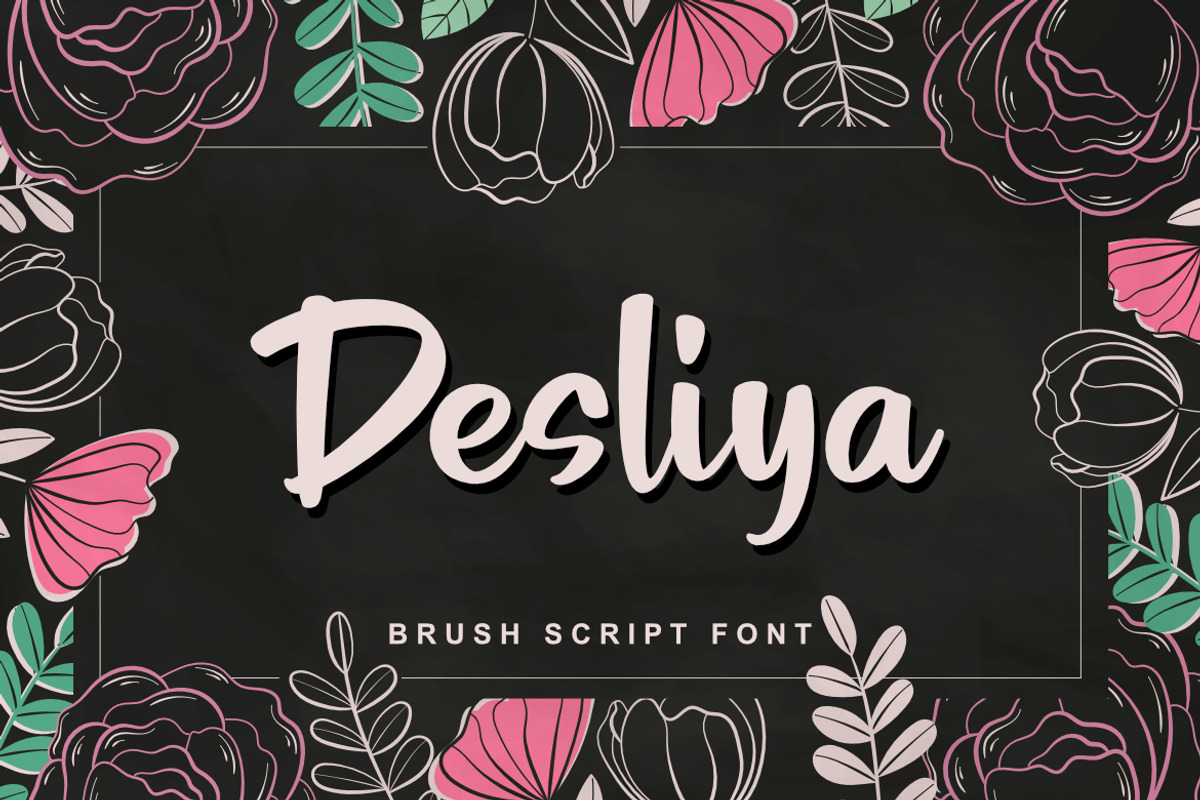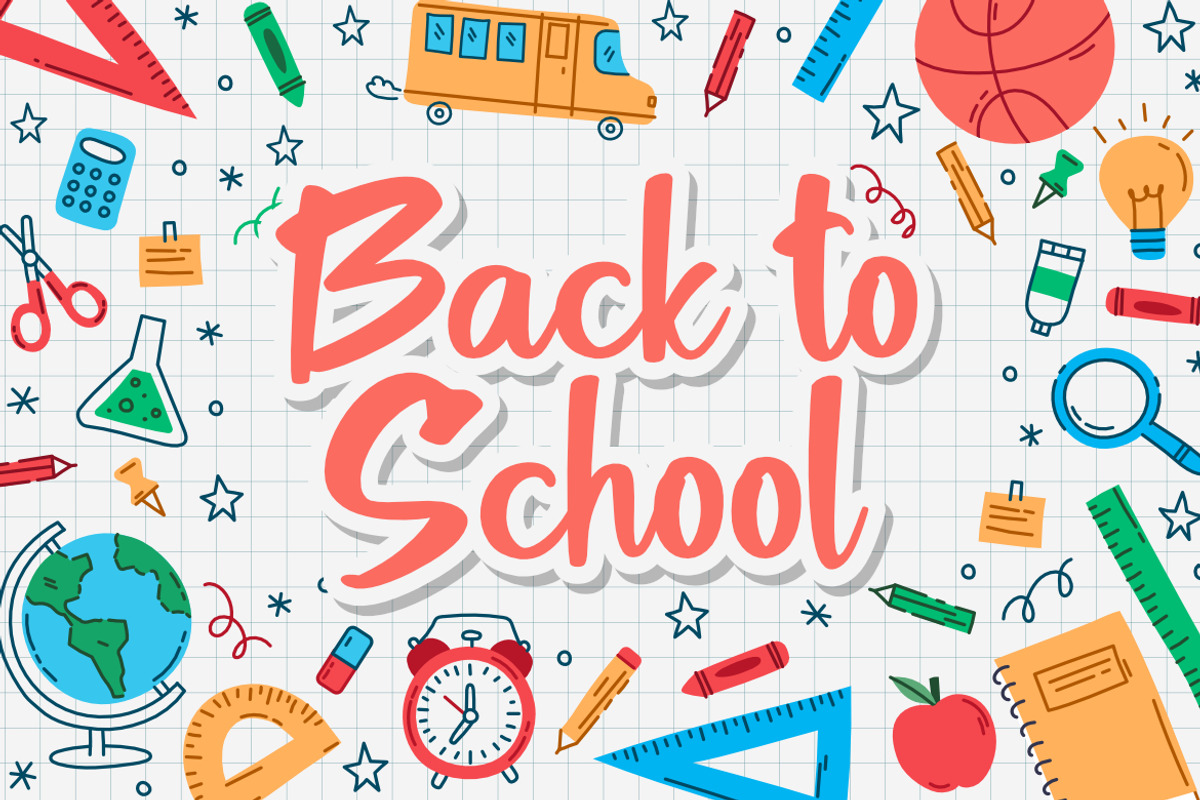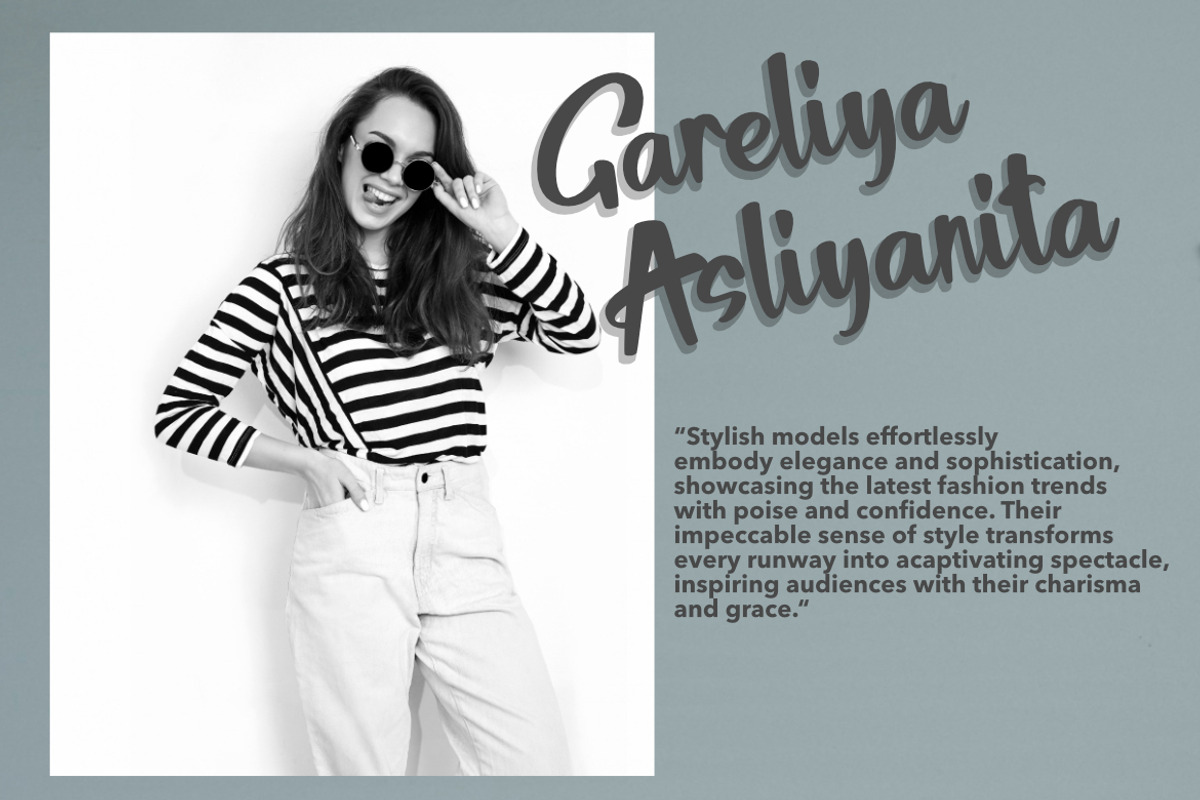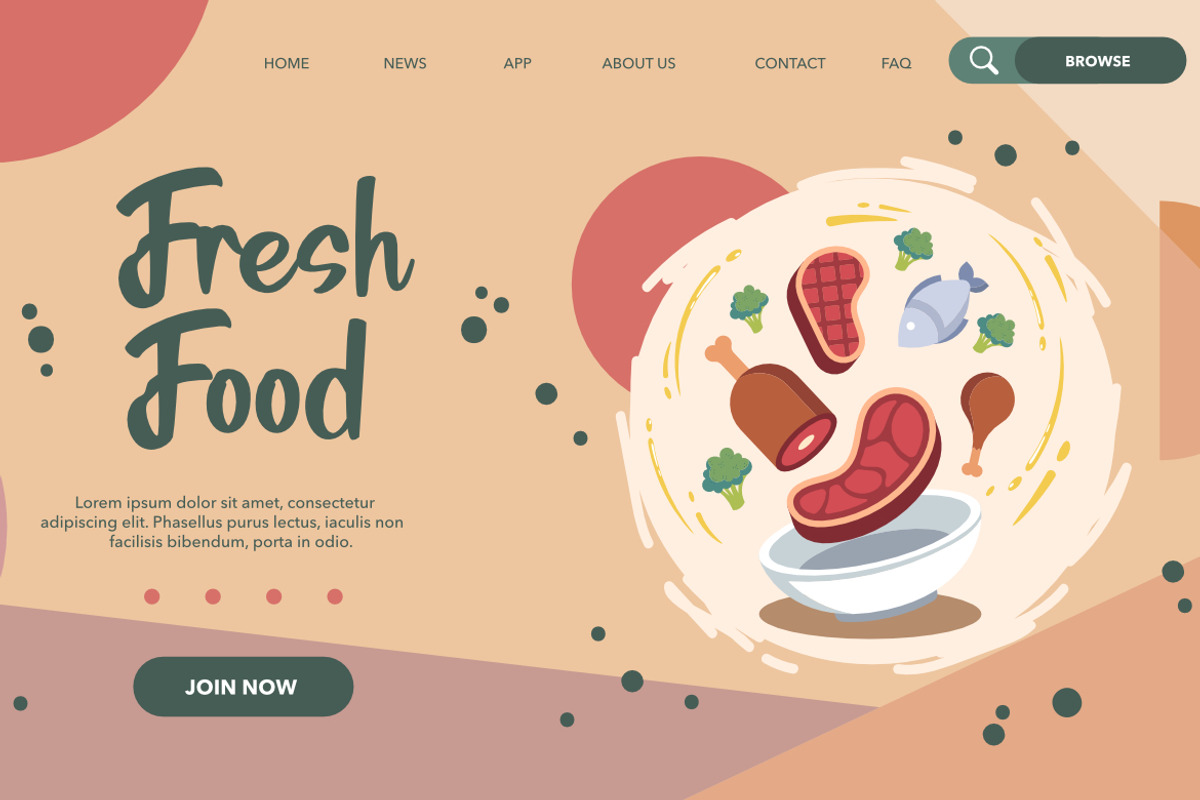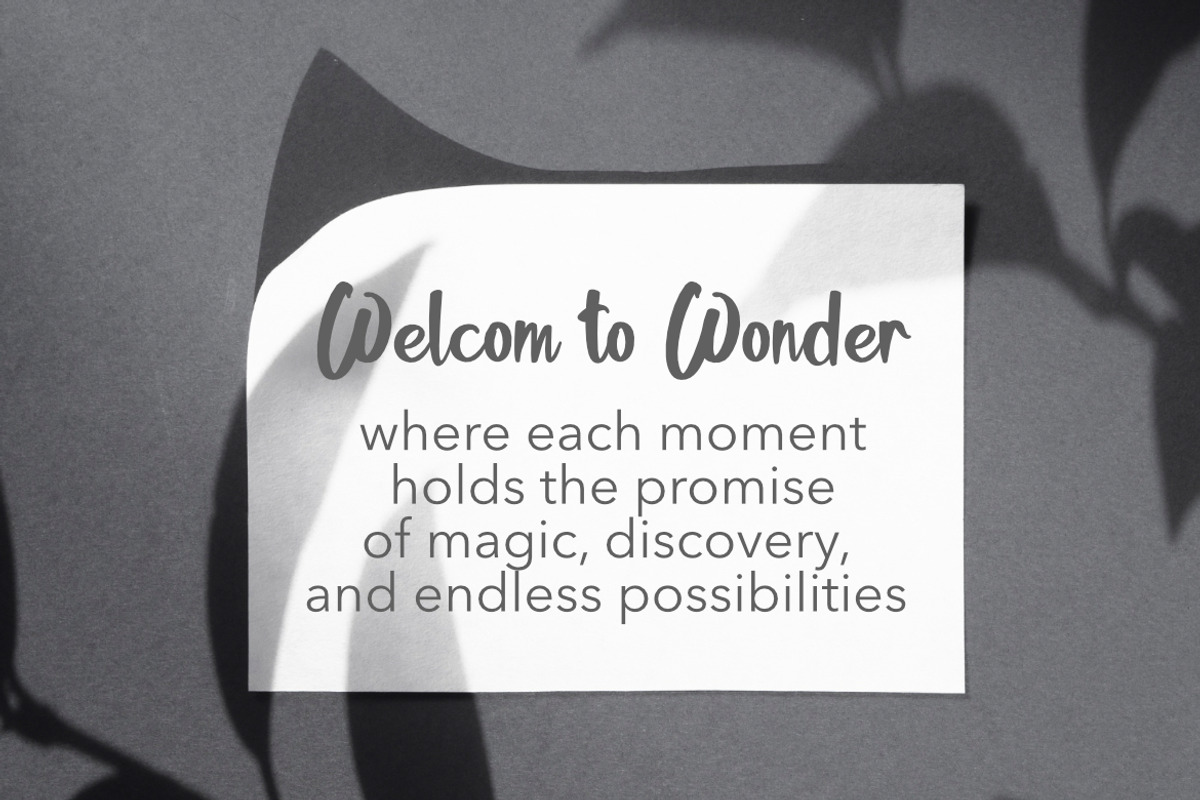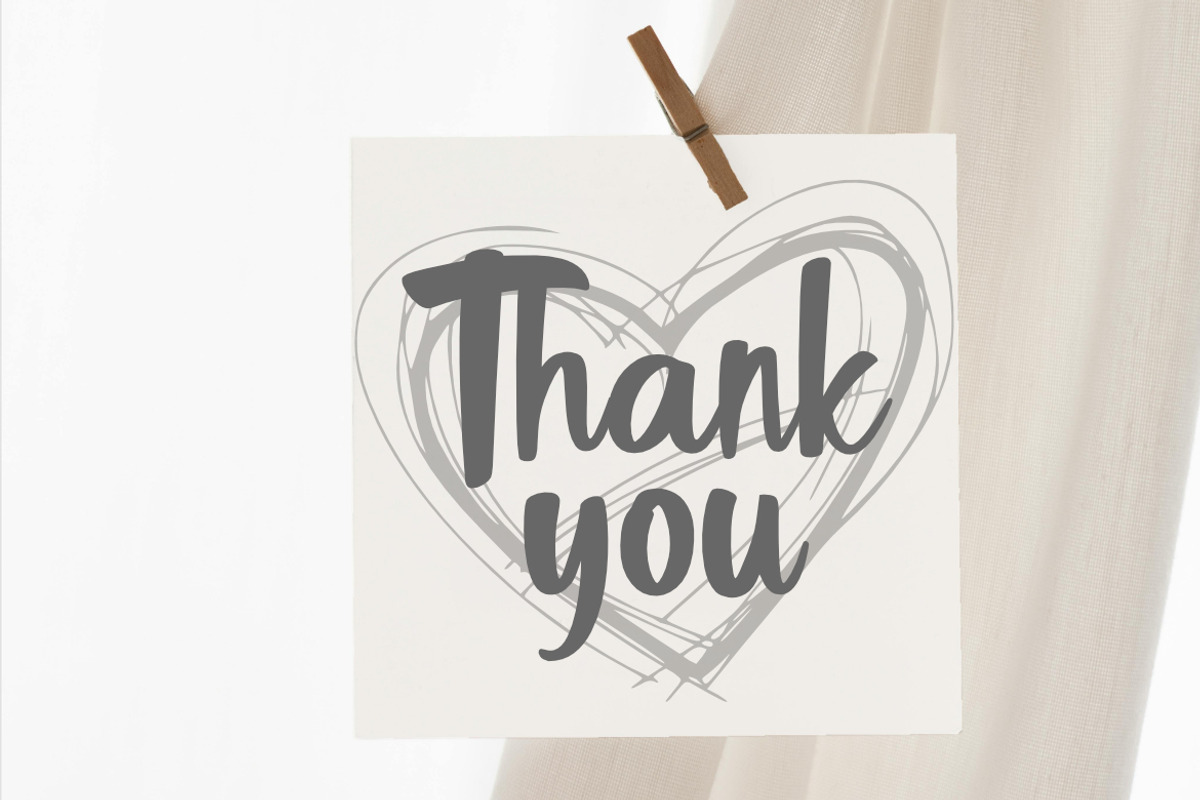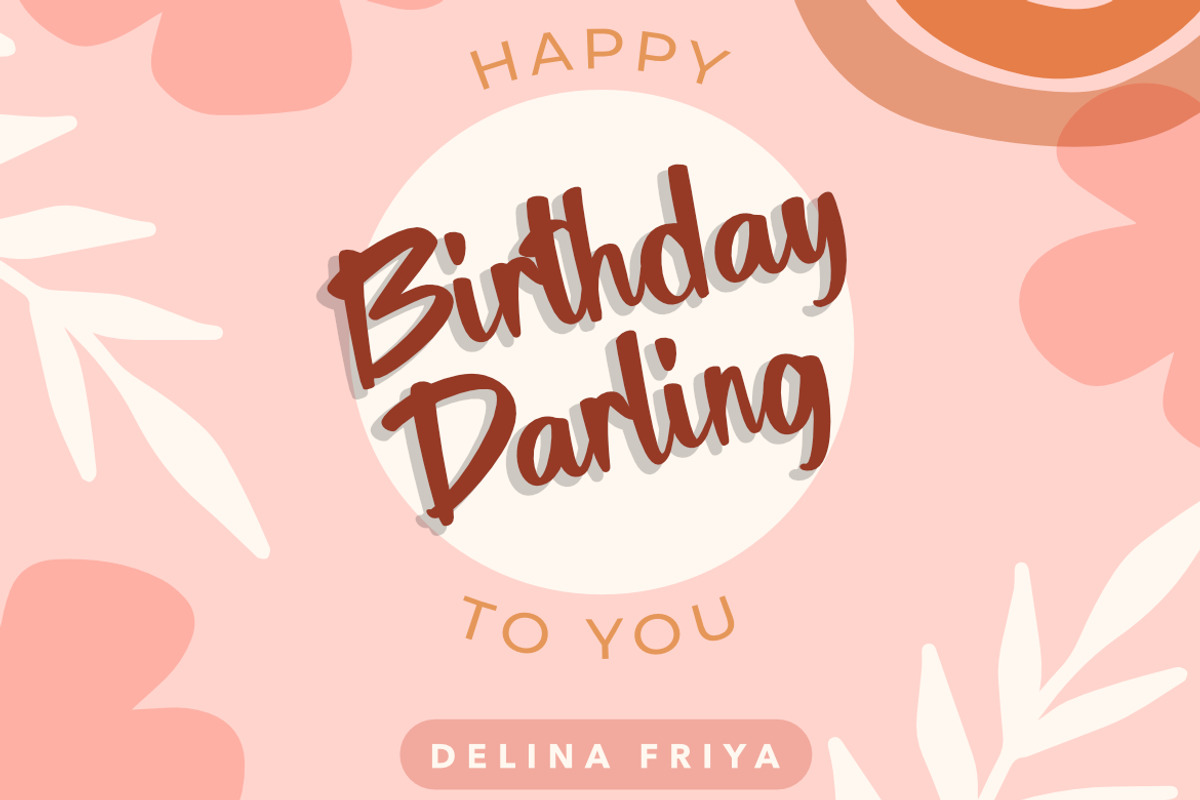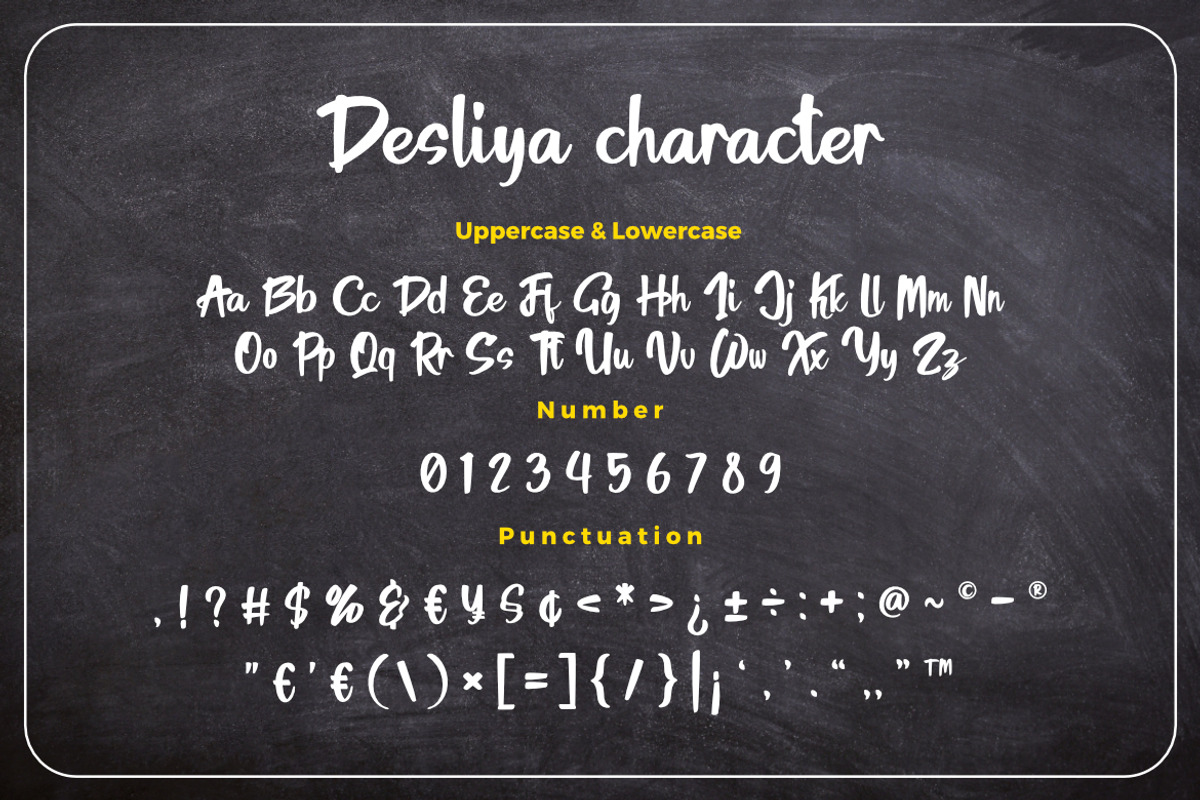
Desliya - Brush Script Font
Desliya a Brush Script Font, This font is made with a high premium quality level which you can use as flyers, quotes, posters, banners, packaging, merchandise, logotypes and much more.